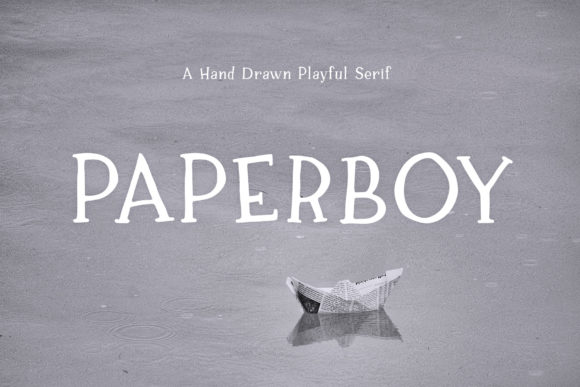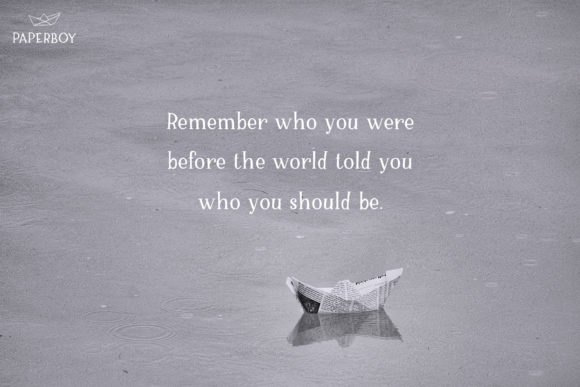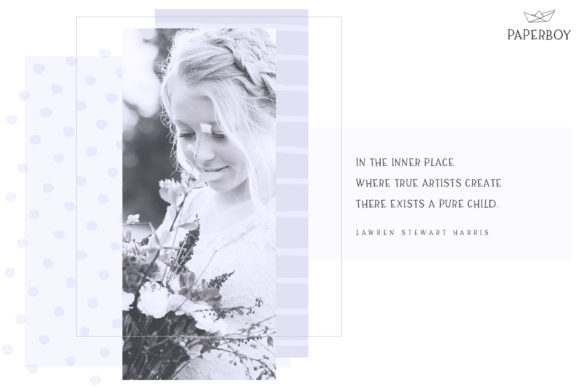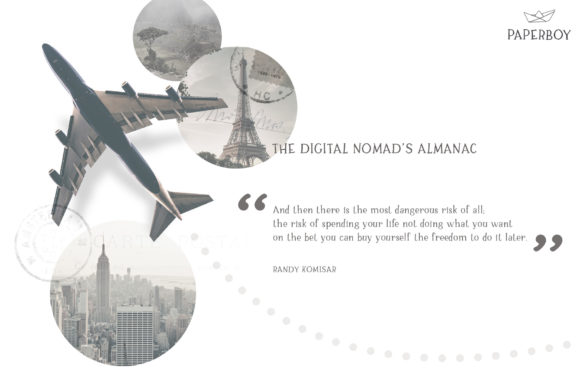
Paperboy Font: A Whimsical Hand-Drawn Serif for Creative Branding
About the Paperboy Font
Let us introduce you to Paperboy Font, where timeless design meets modern craftsmanship. The Paperboy is a hand drawn serif with a whimsical look.
With it’s playful attitude, Paperboy takes out the seriousness that comes with serif fonts, even though it follows the same typographic principles.
Paperboy’s whimsical nature makes it ideal for headlines, short text blocks on posters or packaging, and branding elements needing a touch of playful charm. It would be less suitable for body text or lengthy paragraphs, where readability suffers. Avoid using it in UI, as its informal style may clash with the need for clear, concise information.
Its friendly, approachable personality pairs well with clean sans-serif fonts like Open Sans for body copy, creating a balanced contrast between the playful headline and the easily-readable text. Alternatively, a geometric sans-serif such as Montserrat could offer a modern, sophisticated counterpoint. For a more vintage feel, consider pairing it with a complementary serif like Playfair Display.
Paperboy Font Example